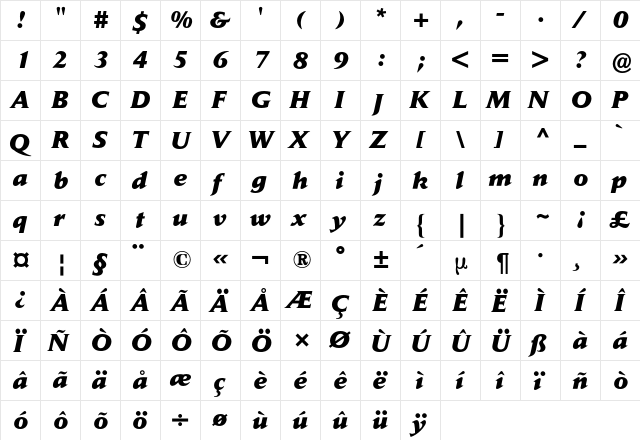
Daily News BQ Regular
Design Context for Daily News BQ Typeface
Daily News BQ is a composed and adaptable typeface that performs quietly and consistently across a wide range of design contexts.